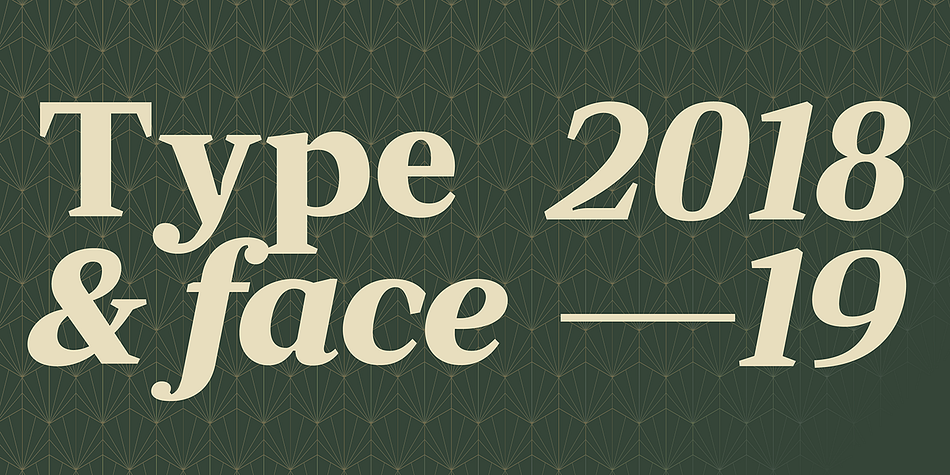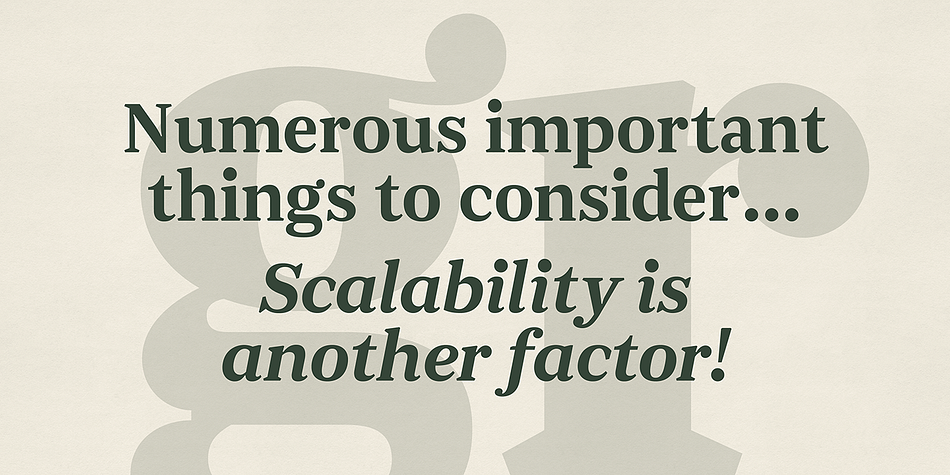
JT Douro Serif
Designed by João Symington, JT Douro Serif is a display serif and serif font family. This typeface has ten styles and was published by JAM Type.
This carefully crafted Display Serif Typeface was meticulously with inspiration from the beautiful Douro valley in the north of Portugal.
Foundry JAM Type
Styles Display Serif, Serif
Designer João Symington